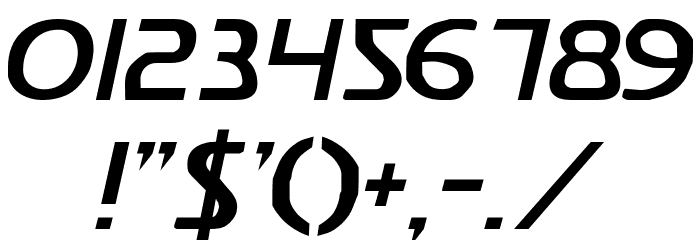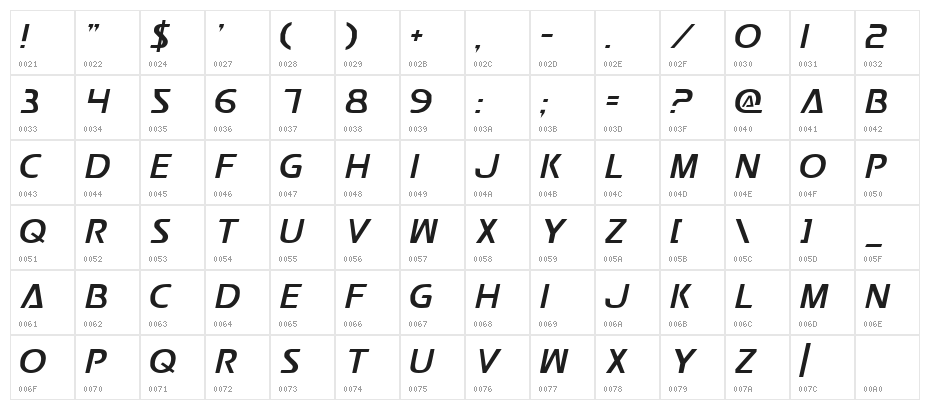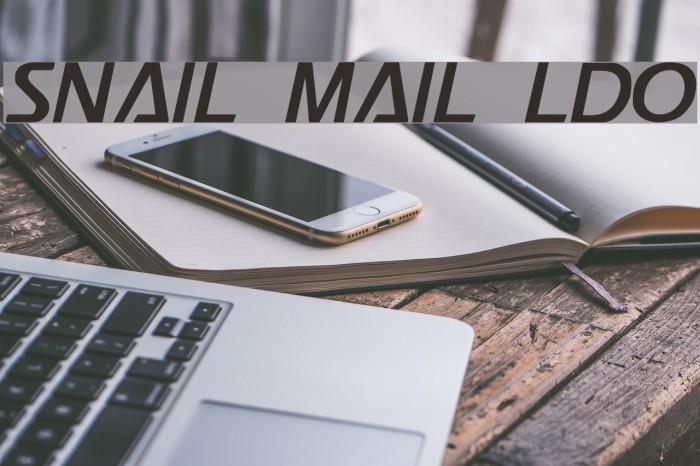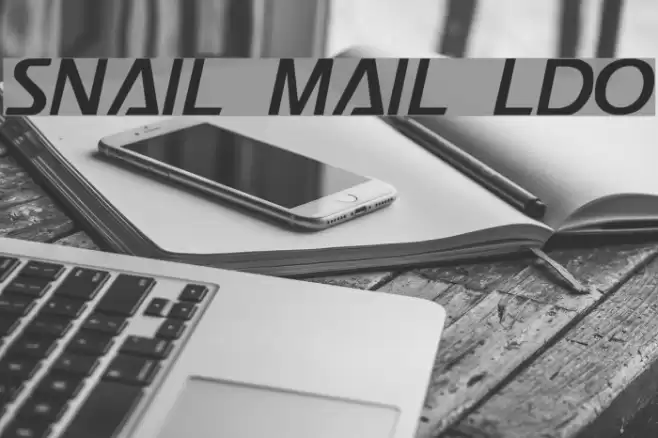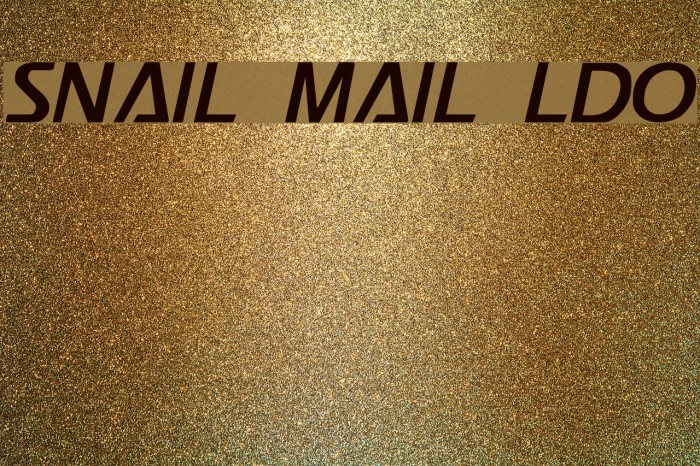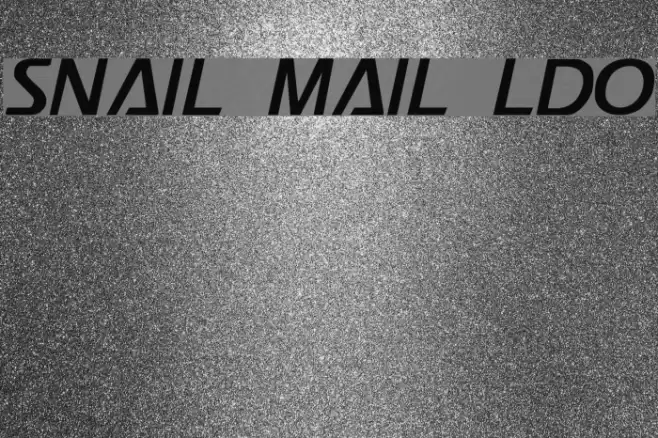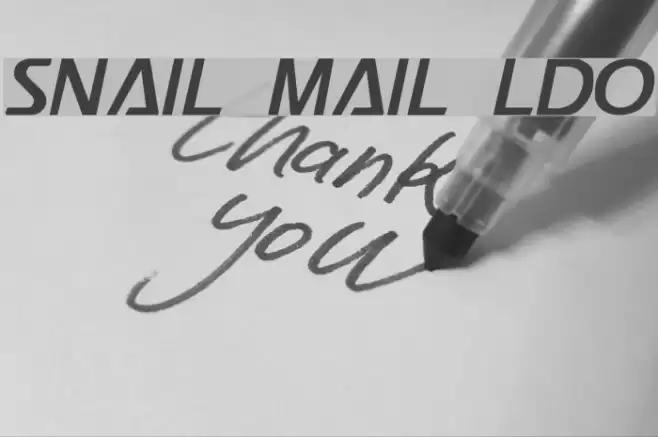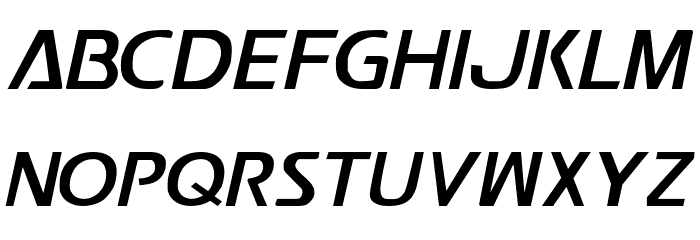
Snail Mail LDO Font
Snail Mail LDO Description
This font features a sleek, modern design with a distinct italic slant, giving it a dynamic and forward-moving appearance. The characters are crafted with precision, showcasing clean lines and a geometric structure. The uppercase letters are bold and assertive, while the lowercase letters maintain a consistent style, ensuring readability. The numerals are well-proportioned, complementing the overall aesthetic. Special characters are included, maintaining the font's cohesive look. This font is ideal for projects that require a contemporary and energetic feel.
| Use Case | Headlines, Logos, Digital Media |
| Proposed Projects | Ideal for branding, advertising, and digital media projects that require a modern and energetic typeface. |